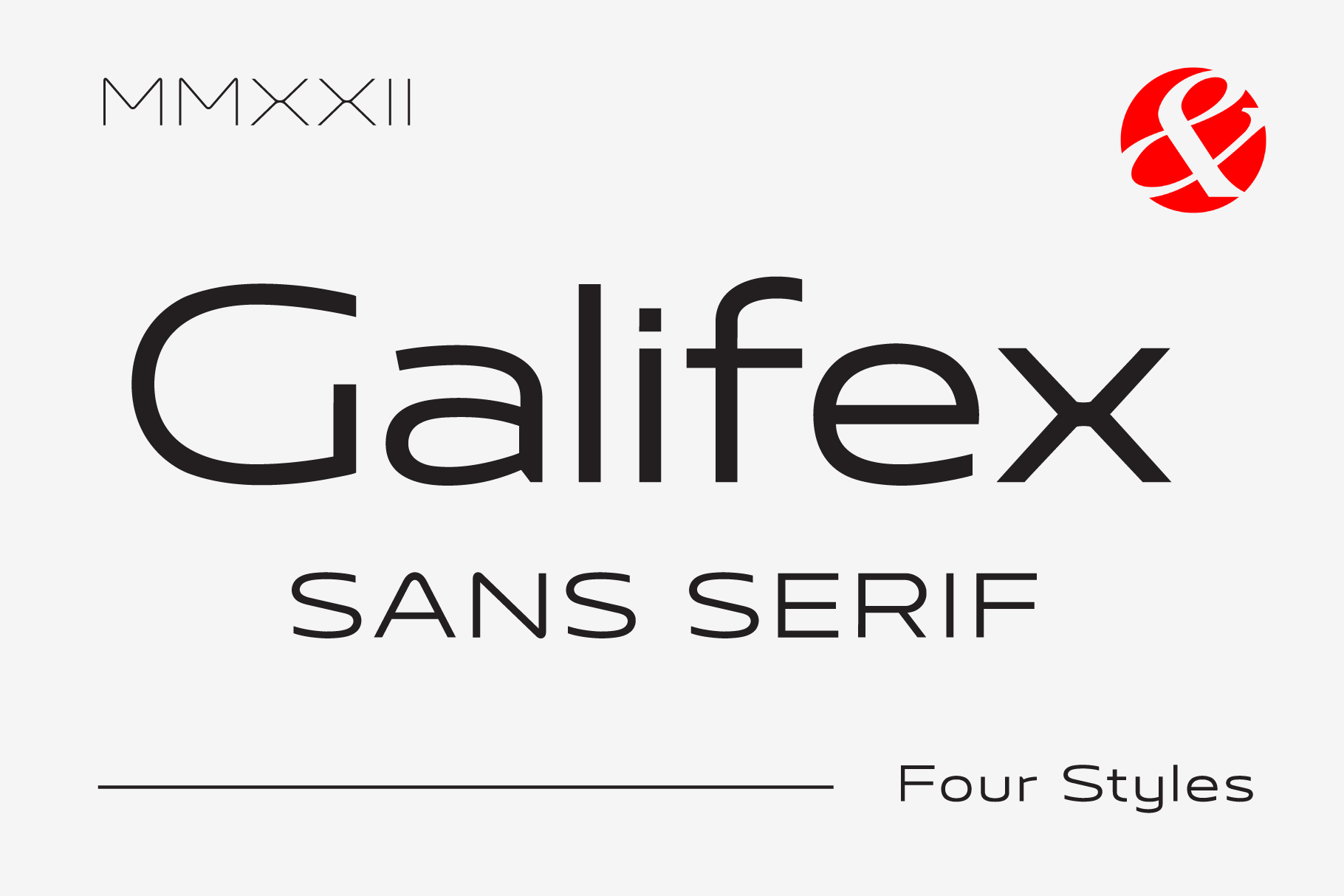
Galifex is a modern and futuristic sans-serif font that includes 4 weights and alternates. It can be used in many many projects. Standard CAPS letters are great in 90% scenarios, it can be masculine strong branding of construction company, but also it can be used in fashion design, interior, etc. you know....it works almost everywhere. But also you can use alternate CAPS and you can create logos of some sort of tech companies, future companies, metaverse, crypto you know...web 3.0.